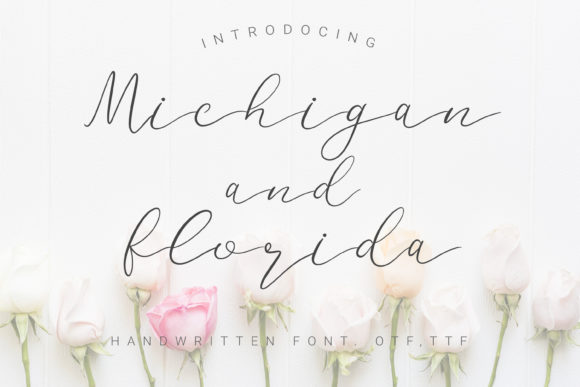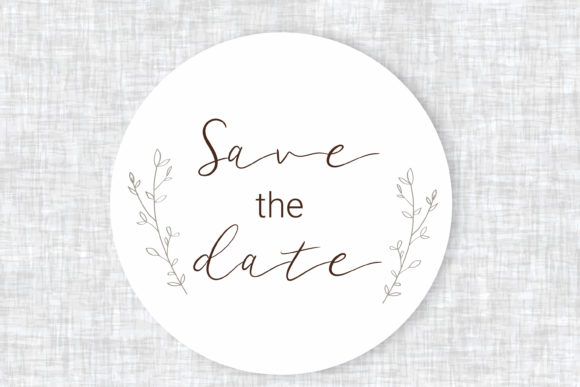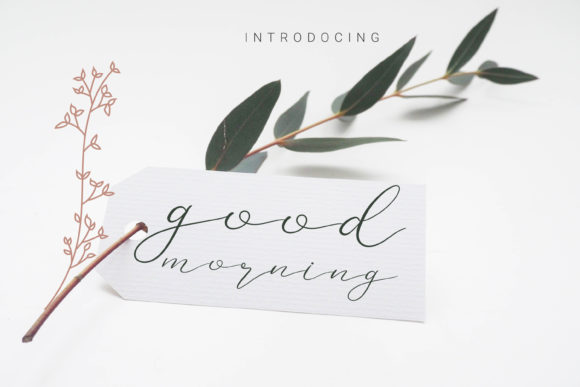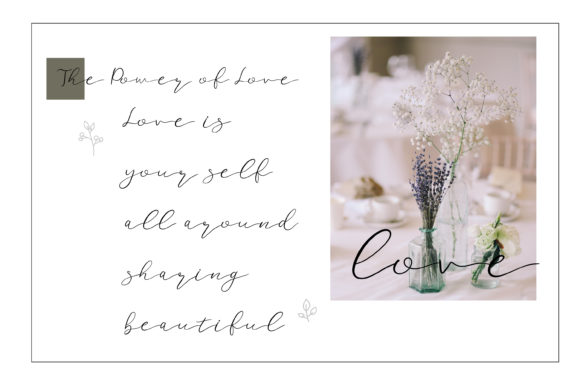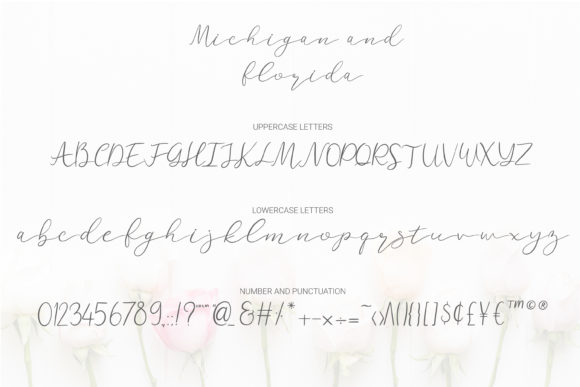
Michigan and Florida Font
About Michigan and Florida Font
Michigan and Florida is a delicate and timeless handwritten font. It looks stunning on wedding invitations, thank you cards, quotes, greeting cards, logos, business cards and every other design which needs a handwritten touch.